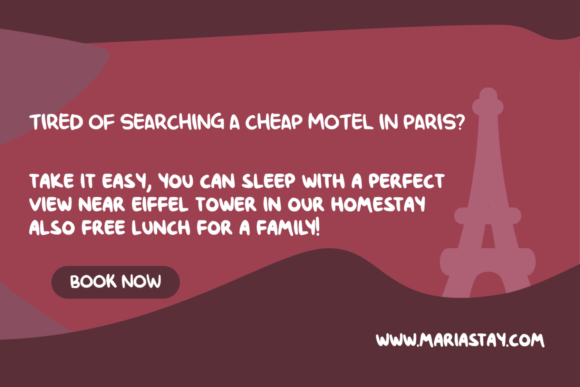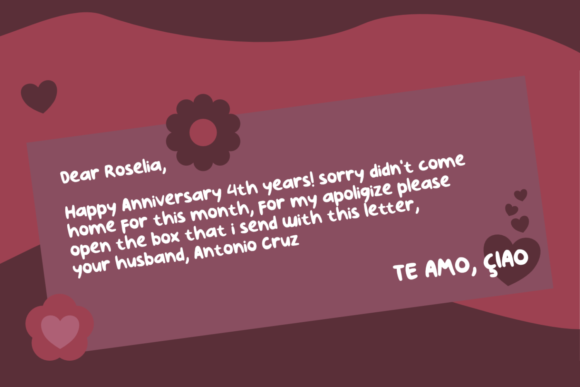
Introduction to Chunky Rosie Font
As a designer, there’s nothing quite like the rush of finding that perfect font to elevate a creative project. For me, it was the discovery of the Chunky Rosie Font that sparked a wave of inspiration. Its sweet and chunky lettered handwritten style has a way of making any design shine. Whether you’re working on a project that needs a playful touch or a high-quality aesthetic, this font is sure to be a valuable resource.
With its incredibly versatile style, the Chunky Rosie Font is the perfect addition to any design toolkit. Imagine being able to create spectacular designs with a single click – and that’s exactly what this font allows you to do. Plus, with a transparent background option, you can seamlessly integrate it into your designs without any hassle. As a free download, it’s an absolute steal for designers of all levels.
Key Features of Chunky Rosie Font
- Unique, hand-drawn design perfect for creative projects and artistic expressions.
- Includes a transparent background, allowing for easy integration with various design elements.
- Unique, chunky texture and bold strokes make it an ideal choice for adding a touch of whimsy and personality to designs.
Honest Review: Chunky Rosie Font
I recently stumbled upon the Chunky Rosie Font while searching for a unique design resource for a creative project. As a designer, I appreciate high-quality fonts that can elevate my work, and this one definitely caught my eye.
- ✨ The font’s chunky, playful style adds a fun touch to any creative project.
- ⚠️ The font is limited in its font sizes, which might be a concern for designers working on larger projects.
- ⚠️ It may not be suitable for formal or professional designs, as its playful style may be too casual.
Overall, I’m impressed with the Chunky Rosie Font and its potential to add a creative twist to various design projects. Its high quality and free download make it a great addition to any designer’s toolkit.
The Chunky Rosie Font is a high-quality design resource perfect for creative projects. It features a unique, playful style that can add a touch of personality to any design.
Tips for Getting the Most Out of Chunky Rosie Font
For best results, use the Chunky Rosie Font on a transparent background to really make it stand out. Experiment with different font sizes and colors to create a unique look.
The Chunky Rosie Font is perfect for a variety of creative projects, including social media graphics, blog posts, and marketing materials. Its playful style makes it ideal for adding a touch of personality to any design.
Alternatives to Chunky Rosie Font
Great Vibes Font is a fun and playful sans-serif font perfect for creative projects that require a carefree vibe. It’s ideal for posters, flyers, and social media graphics. Great Vibes Font offers a transparent background and is available for free download. When to use: For casual and fun designs, such as event invitations, advertisements, or promotional materials. How it compares to Chunky Rosie Font: While Great Vibes Font has a similar playful feel, it lacks the chunky texture of Chunky Rosie Font.
Pacifico Font is a beautiful, elegant script font ideal for designs that require a touch of sophistication. It’s perfect for wedding invitations, packaging, and branding materials. Pacifico Font is available for free download and offers a high-quality design resource. When to use: For formal and elegant designs, such as wedding invitations, luxury packaging, or high-end branding materials. How it compares to Chunky Rosie Font: While Pacifico Font has a more refined feel, it lacks the chunky texture and playful feel of Chunky Rosie Font.